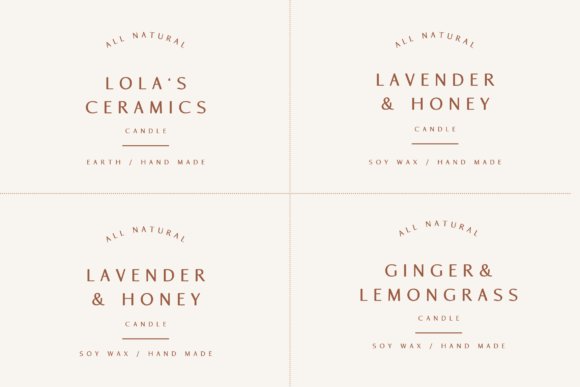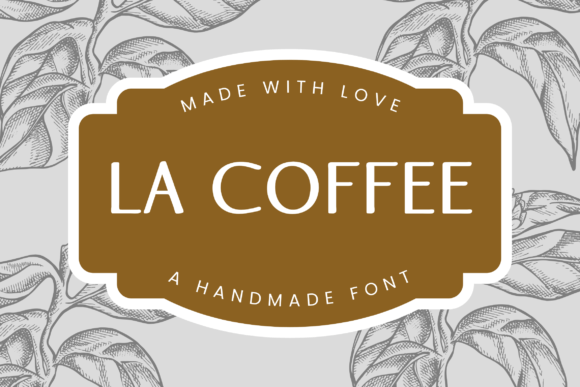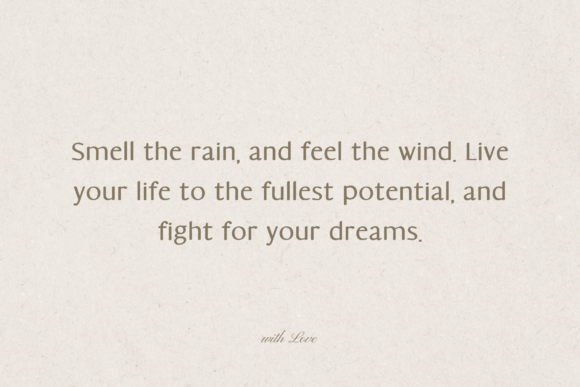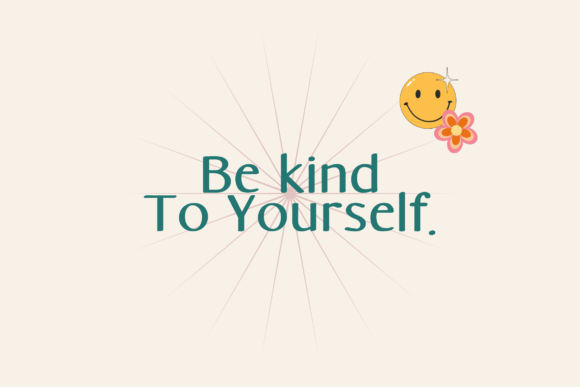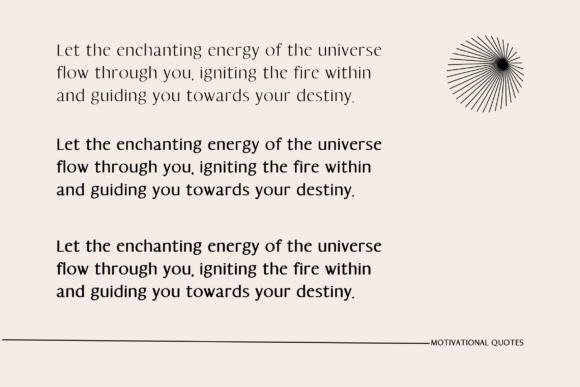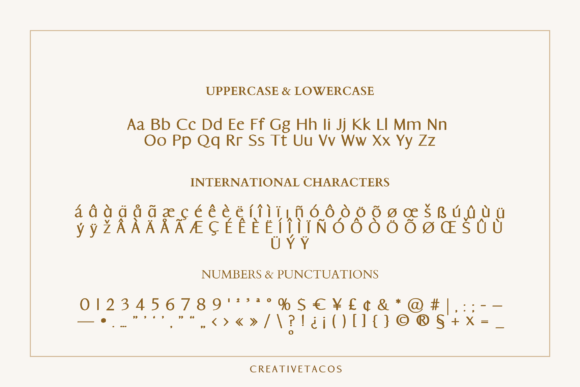
Introduction to La Coffee Font
Have you ever stared blankly at your computer screen, searching for the perfect font to elevate your design project? The blank page staring back can be intimidating, but what if I told you there’s a solution that’s both stylish and easy to use? Enter La Coffee Font, a sleek and modern sans serif font designed to bring your creative vision to life.
As a designer, you know how crucial it is to find high-quality fonts that fit your unique style and project needs. La Coffee Font is a game-changer, offering a free download with a transparent background that makes it perfect for any creative project. Whether you’re working on a branding campaign, designing a logo, or crafting a beautiful quote, La Coffee Font is sure to add a touch of sophistication and elegance to your work.
Key Features of La Coffee Font
- High-quality design with a unique, modern aesthetic, perfect for creative projects.
- Unique characteristics include a clean, minimalist design and a wide range of styles and weights.
- Suitable for use in various design projects, including logos, typography, and branding materials.
Honest Review: La Coffee Font
I recently stumbled upon the La Coffee Font, and I must say it’s a fantastic addition to any design enthusiast’s collection. This free download is perfect for creative projects that require a high-quality, elegant touch.
- ✨ The font’s transparent background makes it incredibly versatile and easy to use in various design contexts.
- ✨ The font’s sleek, modern design makes it perfect for projects that need a touch of sophistication.
- ⚠️ The font’s limited character set may be a drawback for designers who need a wider range of glyphs.
- ⚠️ The font’s bold weight can sometimes appear too thick, which may not be suitable for all design applications.
Overall, I’m really impressed with the La Coffee Font. While it’s not perfect, its high-quality design and transparent background make it a valuable resource for designers working on creative projects. With a little creativity, the font’s limitations can be easily overcome, and I highly recommend it to anyone looking for a unique and stylish font.
Tips for Getting the Most Out of La Coffee Font
For the best results, use La Coffee Font in conjunction with other high-quality design resources. Experiment with different font sizes, colors, and arrangements to create a unique and visually appealing design. Additionally, consider using the font’s transparent background to create a sense of depth and dimension in your design.
Common Use Cases for La Coffee Font
La Coffee Font is a versatile design resource that can be used in a variety of creative projects, including business cards, logos, brochures, and social media graphics. Its high-quality design and transparent background make it an ideal choice for designers who want to create visually appealing and professional-looking designs.